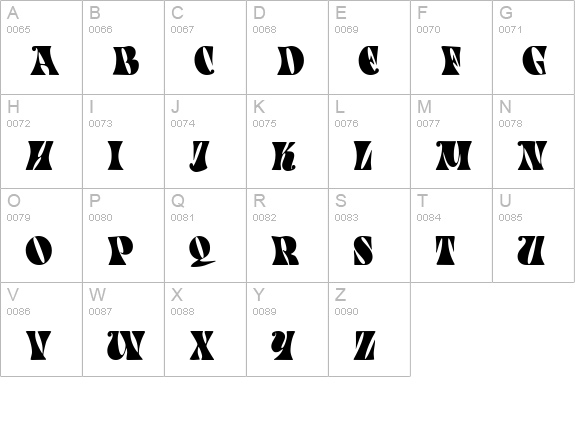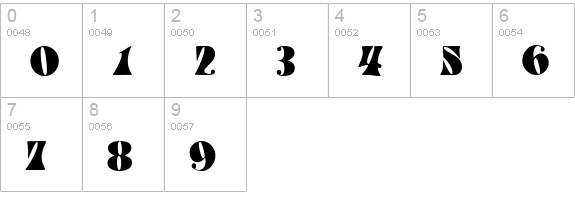
Spacearella Font Details
Introducing Spacearella, a captivating and futuristic font that will transport your typography to new dimensions. With its sleek and modern design, Spacearella is the perfect choice for any project that requires a touch of cosmic elegance. This stunning font features an exquisite balance between sharp edges and smooth curves, creating a harmonious blend of space-age aesthetics and timeless sophistication. Each letter is meticulously crafted to embody the essence of celestial beauty, making Spacearella an ideal choice for logos, headlines, posters, and more. Not only does Spacearella effortlessly capture the awe-inspiring vastness of the cosmos, but it also offers incredible versatility. Whether you're aiming for a bold and impactful statement or a delicate and ethereal look, this font has the flexibility to cater to your design needs. But what sets Spacearella apart is not just its exceptional design, but also its accessibility. We believe that creativity should be free to flourish, and that's why we are thrilled to offer Spacearella as a freely available font for you to download at FontsMarket.com. Now, you can infuse your projects with the brilliance of Spacearella without any restrictions. So, embrace the boundless possibilities of the universe and let Spacearella guide your typography to new frontiers. With its captivating charm and effortless elegance, this font is sure to elevate your designs and leave a lasting impression. Download Spacearella today and embark on a cosmic journey of creativity like no other.